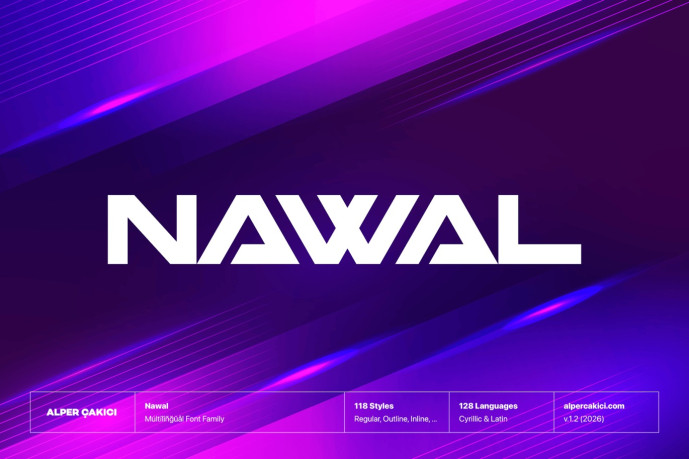
Nawal is a bold, futuristic display typeface built on wide, geometric forms and a strong modular structure. Designed for versatility and visual impact, it balances sharp precision with expressive texture, making it suitable for both clean digital interfaces and experimental branding.
The family includes an extensive system of 118 styles, ranging from pristine geometric cuts to richly textured variants such as Brush, Chalk, Grainy, Gritty, Rusty, and Sketchy. Each style is carefully crafted to maintain legibility while introducing distinct personality, allowing designers to move seamlessly from sleek sci-fi aesthetics to raw, handcrafted looks. Nawal expands further with Circular and Rounded subfamilies, offering softer curves and alternative constructions without losing its futuristic DNA. Inline, Outline, Rimmed, and Traced styles provide layered design possibilities, ideal for logos, posters, headlines, packaging, and editorial work.
With broad language support covering over 120 Latin-based languages, Nawal is built for global use.